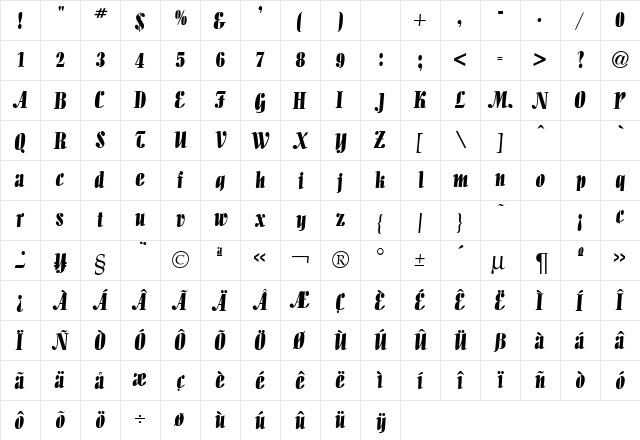
AllegrettoDB Normal
Design Context for AllegrettoDB Typeface
AllegrettoDB takes a measured approach to typography — its balanced proportions and neutral character make it a reliable workhorse for both digital and print work.
Pro Tip: Use AllegrettoDB in both headline and body roles to test its range before committing to a single application.